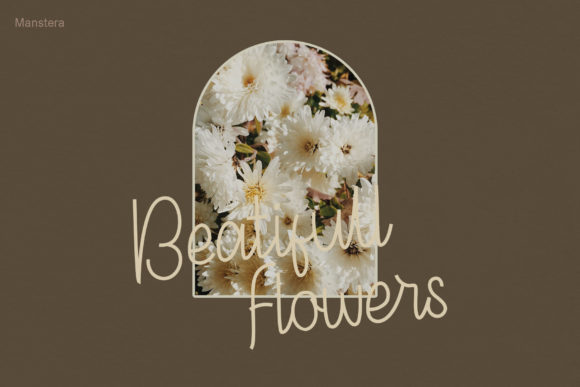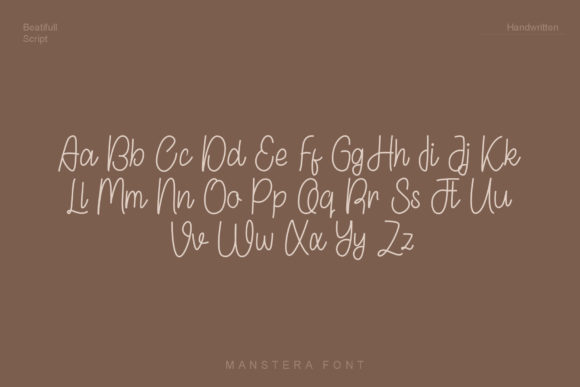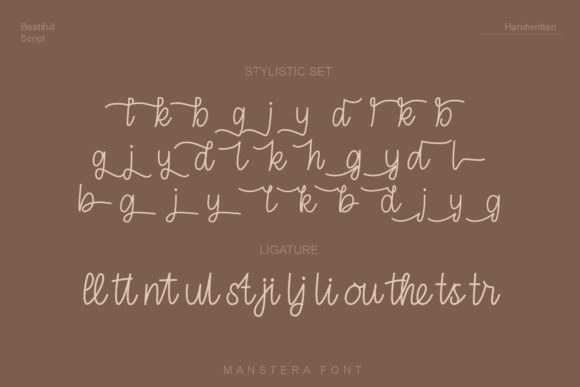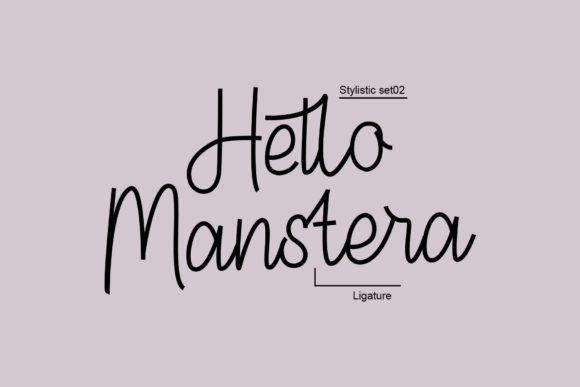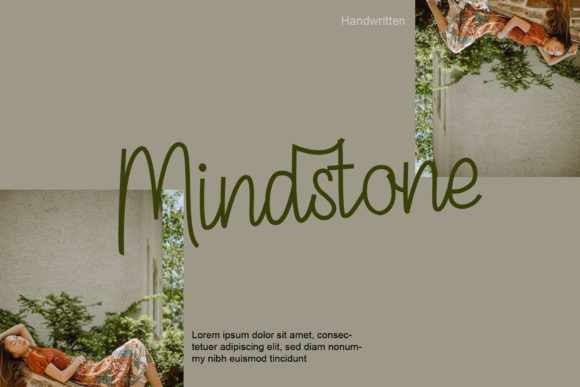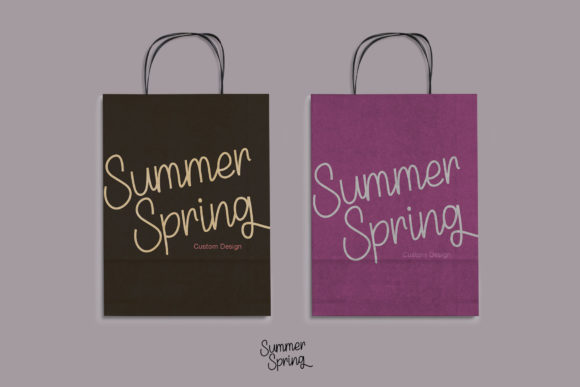
Introduction to Manstera Font
Have you ever found yourself stuck in the middle of a creative project, desperately searching for the perfect font to elevate your design? It’s a frustrating feeling, isn’t it? But what if I told you that there’s a font that can change the game for you? Enter the Manstera Font, a stunning script font that’s sure to take your designs to the next level.
As a designer, you’re always on the lookout for high-quality design resources that can help you create truly unique and captivating content. The Manstera Font is exactly that – a versatile and adaptable script font that’s perfect for a wide range of creative projects. With its delicate and intricate design, it’s ideal for adding a touch of elegance to your designs, whether you’re working with a transparent background or a solid one.
Key Features of Manstera Font
- High-quality, unique, and creative font perfect for various design projects.
- Transparent background, making it ideal for use on any design resource or creative project with a clear background.
- Available in a range of sizes, from 16px to 96px, to cater to various design requirements and resolutions.
- High-resolution design font, suitable for print and digital applications, including business cards, logos, and more.
- Perfect for designers looking for a free, high-quality design resource to elevate their creative project.
Honest Review: Manstera Font
I recently had the chance to experiment with the Manstera Font, and I’m excited to share my thoughts on this design resource.
What works well: ✨ The Manstera Font has a unique, high-quality design that’s perfect for creative projects that require a touch of elegance. Its cursive script style adds a personal touch to any text, making it ideal for wedding invitations, quotes, or any other design where a handwritten feel is desired.
- The font is highly versatile and can be used for a wide range of applications, from print materials to digital designs.
However, there are a few limitations to consider: ⚠️ The Manstera Font doesn’t support a transparent background, which may limit its use in certain design scenarios. Additionally, the font’s unique style may not be suitable for all types of projects.
Overall, I’m impressed with the Manstera Font’s high-quality design and versatility. While it may not be perfect for every project, it’s a valuable addition to any designer’s toolkit, especially for those working on creative projects that require a touch of sophistication.
Introduction to Manstera Font
Manstera Font is a high-quality design resource that offers a unique and elegant style, perfect for creative projects. This versatile font is available for free download and can be used with various design applications.
Common Use Cases for Manstera Font
Manstera Font is commonly used for creative projects, such as: branding, marketing materials, social media graphics, and more. Its unique style and high-quality design make it perfect for any project that requires a touch of elegance.
Q: Is the Manstera Font suitable for large-scale designs or print materials?
Yes, the Manstera Font is designed to be scalable and suitable for large-scale designs, including print materials like business cards, brochures, and posters. Its high-quality design ensures crisp and clear text, even at large font sizes.